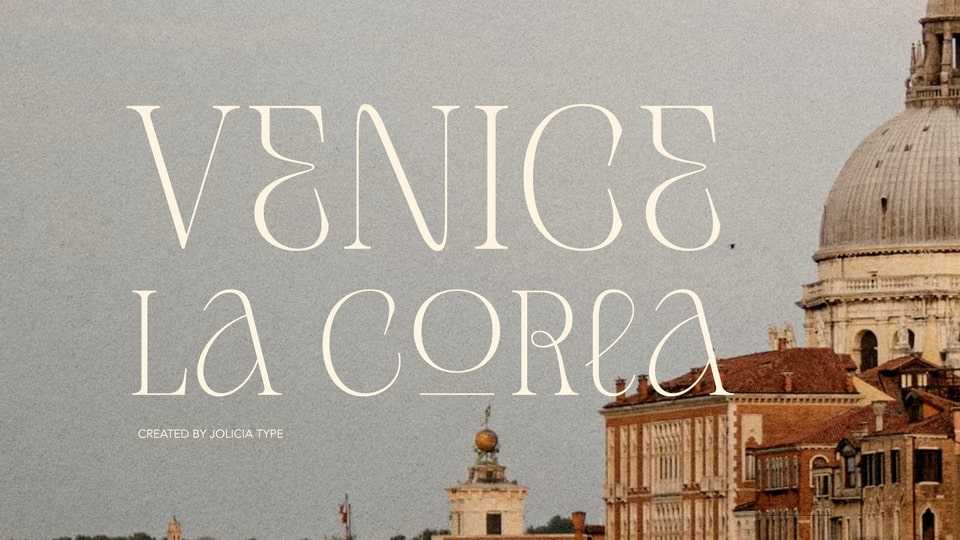
Download Venice La Corla font, a breathtaking serif typeface that embodies timeless elegance and sophistication. Venice La Corla font exudes a sense of refinement and grace that is perfect for projects where a touch of classic charm is required.